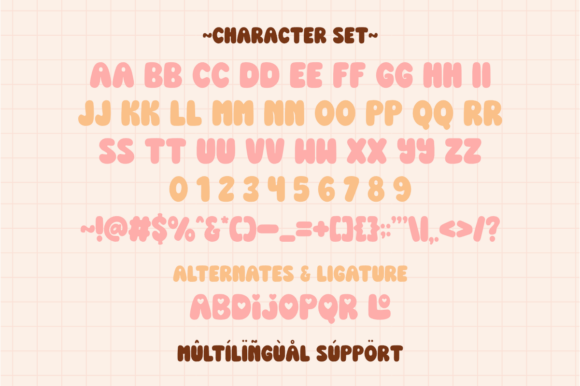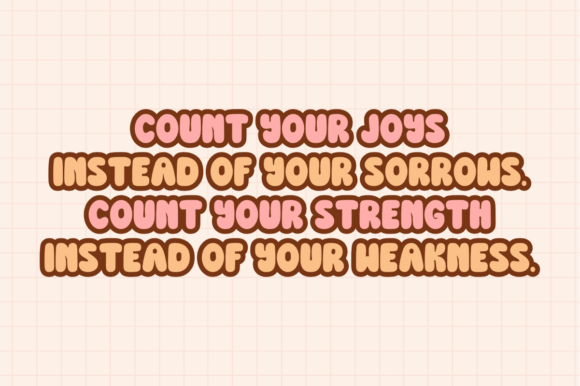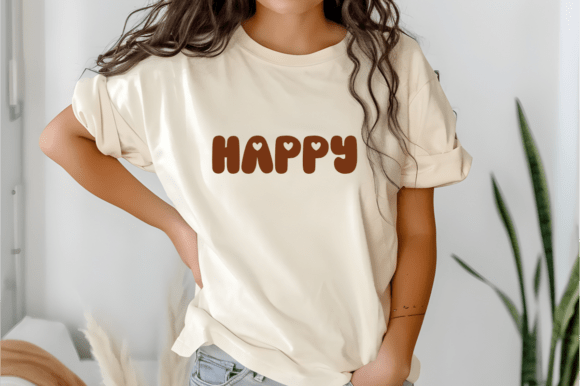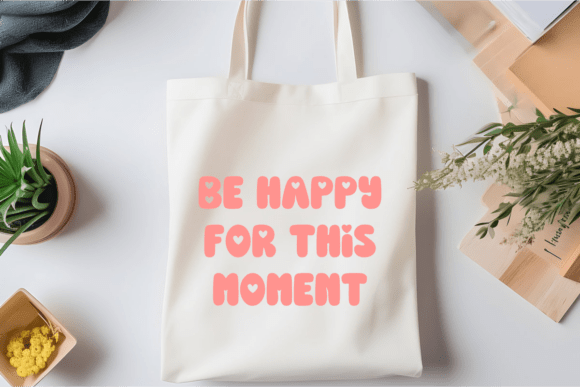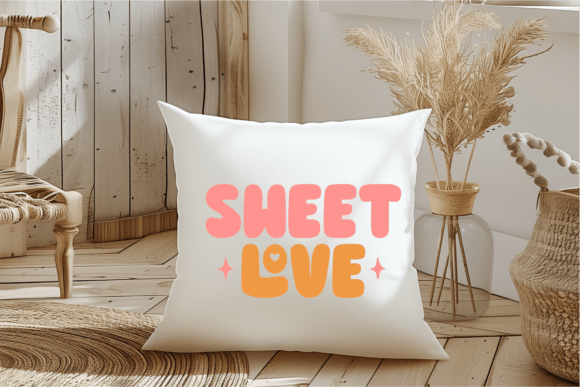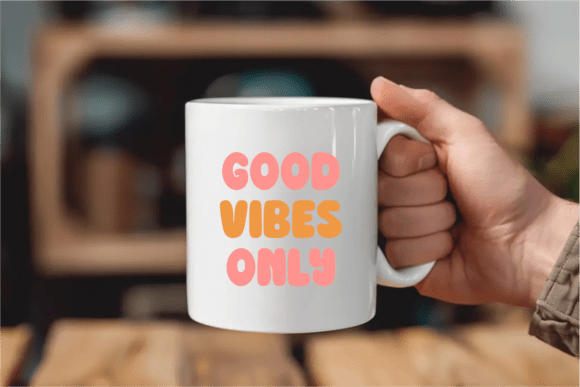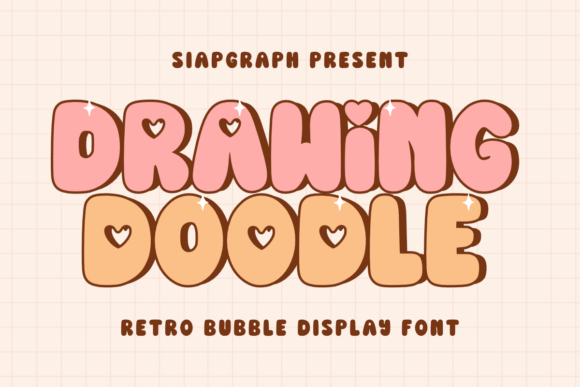
Unleash Your Creativity with Drawing Doodle Font: A Vibrant and Imaginative Bubble Retro Display Font
Are you a designer, crafter, or DIY enthusiast looking for a font that embodies artistic freedom and playful creativity? Look no further than Drawing Doodle Font, a delightful and charming bubble retro display font that is sure to add a touch of whimsy and nostalgia to your creative projects.
The Essence of Drawing Doodle Font
Drawing Doodle Font is a vibrant and imaginative font that perfectly captures the essence of artistic freedom and playful creativity. Its plump, rounded, and wonderfully soft letterforms evoke a nostalgic feeling of hand-drawn art, while the adorable heart accents add a touch of sweetness and charm. This font is perfect for infusing a dose of artistic joy and whimsical retro style into a wide array of creative projects.
Drawing Doodle Font is an incredibly versatile font that can be used to enhance a wide range of creative projects. Imagine using it to create:
- Delightful stickers that add a touch of personality to any craft project
- Imaginative planner elements that make planning and organization a joy
- Eye-catching t-shirt designs that are sure to turn heads
- Sweet product labels for craft supplies that add a touch of charm
- Charming invitations for art parties and creative gatherings
- Personalized tumblers and water bottles that make thoughtful gifts
Exceptionally Well-Suited for Cricut and Sublimation Projects
Drawing Doodle Font is exceptionally well-suited for products targeting end-users who enjoy crafting with tools like Cricut and for sublimation projects. Its distinctively bubbly and retro style makes it perfect for creating:
- Appealing stickers and planner elements with a truly unique and joyful flair
- Customized Cricut projects, such as vinyl decals and iron-on designs
- Sublimation projects, such as personalized mugs and phone cases
Why Choose Drawing Doodle Font?
So why choose Drawing Doodle Font for your creative projects? Here are just a few reasons:
- Unique and playful style: Drawing Doodle Font has a one-of-a-kind, bubbly, and retro style that is sure to add a touch of personality to any project
- Easy to read and use: The font’s plump, rounded letterforms make it easy to read and use, even for younger audiences
- Highly versatile: Drawing Doodle Font can be used for a wide range of creative projects, from stickers and planner elements to t-shirt designs and sublimation projects
- Adorable heart accents: The font’s adorable heart accents add a touch of sweetness and charm to any project
Tips for Using Drawing Doodle Font
Here are a few tips for using Drawing Doodle Font in your creative projects:
- Experiment with different colors and textures: Drawing Doodle Font looks great in a variety of colors and textures, so don’t be afraid to experiment and find the perfect combination for your project
- Pair with other fonts: Drawing Doodle Font pairs well with other fonts, so try combining it with a bold or script font to add visual interest to your project
- Use for headlines and titles: The font’s playful and eye-catching style makes it perfect for headlines and titles
Drawing Doodle Font is a vibrant and imaginative bubble retro display font that is sure to add a touch of artistic joy and whimsical retro style to your creative projects. With its unique and playful style, ease of use, and high versatility, it’s the perfect font for designers, crafters, and DIY enthusiasts of all levels. So why wait? Download Drawing Doodle Font today and start unleashing your creativity!